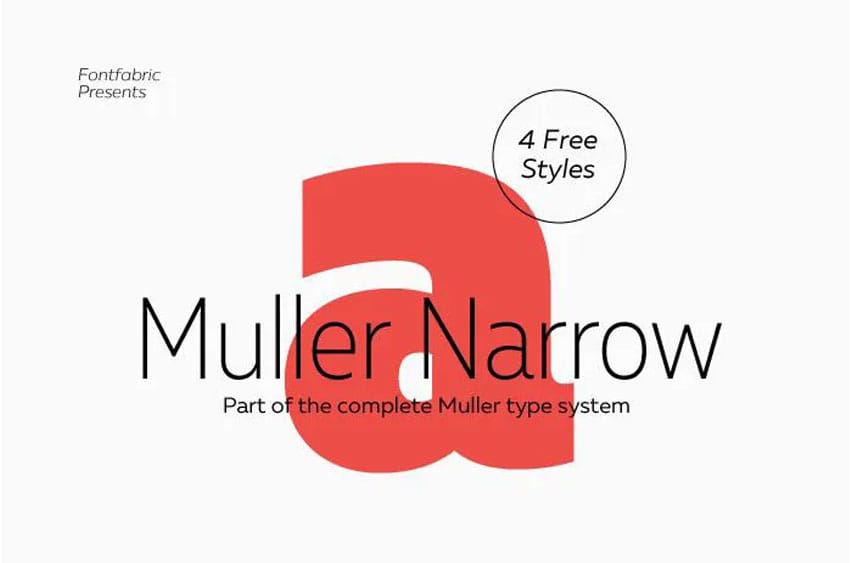
Muller Narrow Font is a subfamily of the Muller Type System that contains the 20 weights from Thin to Heavier with their matching Italic styles, and this is just a part of the 44 fonts found in this family. Narrow font is well suitable for the web and screens, advertising, packaging, content creation, branding, and editorial works.
Approximately five years ago, the concept of the first Muller was developed and the first design was drawn. However, these have greatly changed from the initial design since we lay so much emphasis in trying to produce the best and this implies that we are likely to make a number of adjustments.
Font family was created with a very narrow architecture to look good especially when used at a small size, but when used at large sizes, extra attention was needed. We have established an excellent equilibrium to generate this beautiful font family.